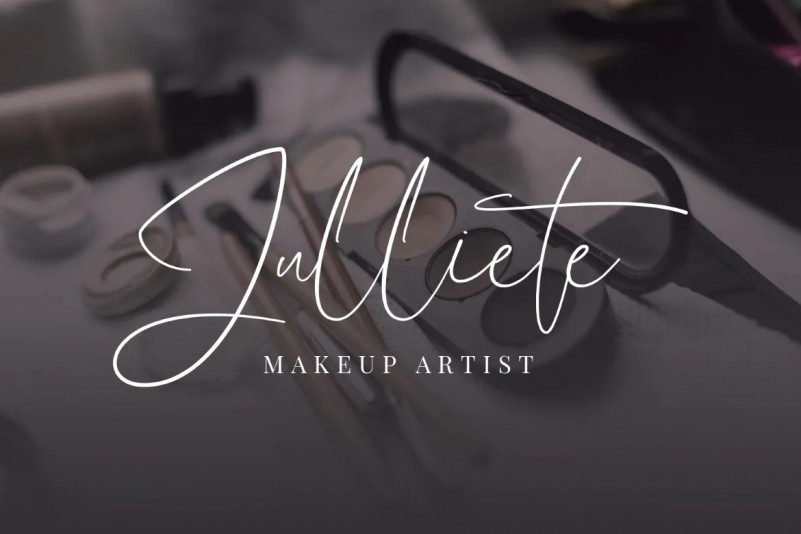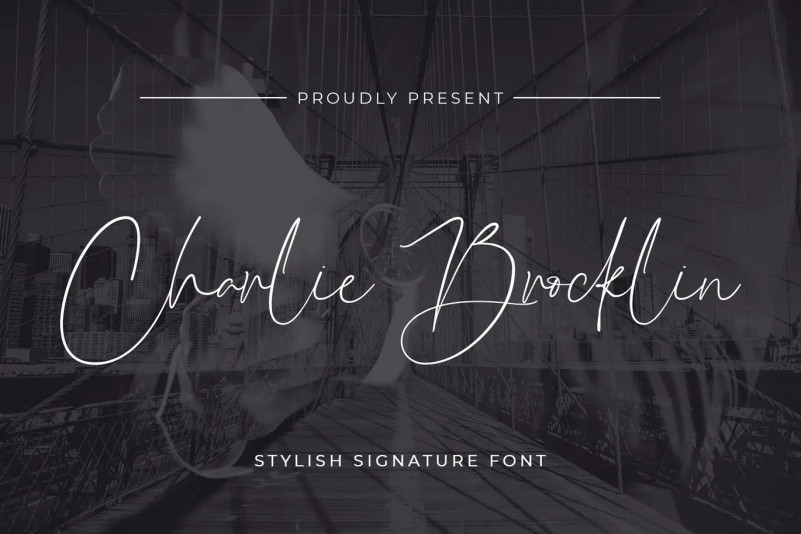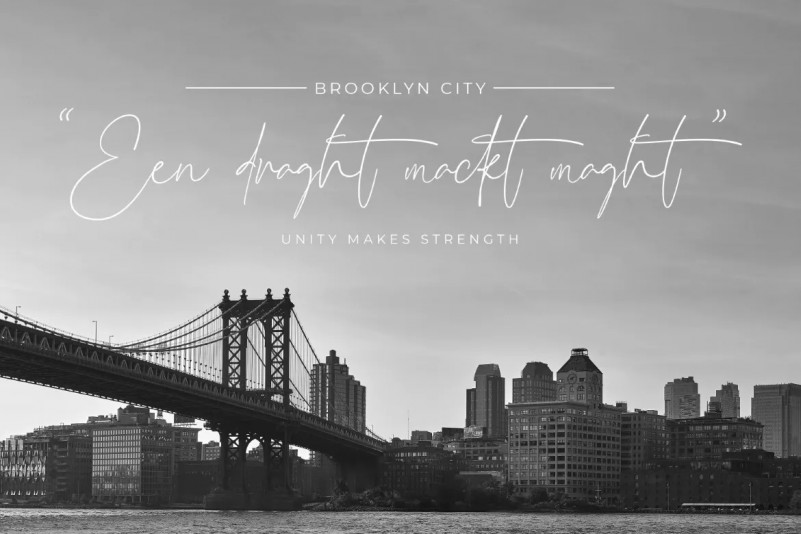
Charlie Brocklin Font
Introducing Charlie Brocklin – Stylish Ligature Script is a Quality script that is written casually and quickly with 15 ligature. Letters are made with Sign on paper. Then scanned and carefully drawn into vector format.